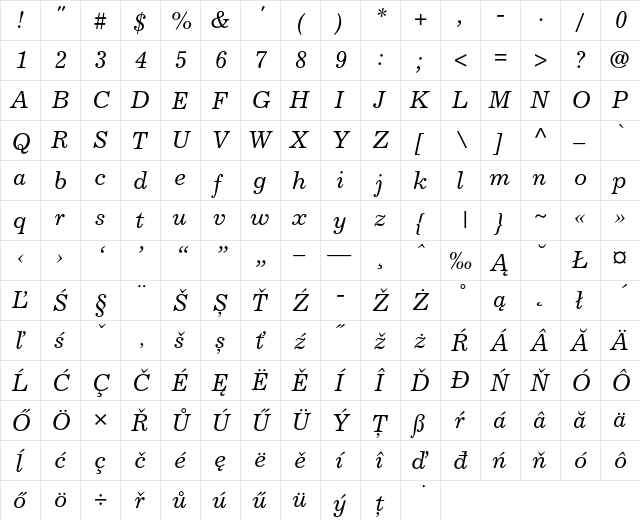
Excelsior EastA Italic
Design Context for Excelsior Typeface
Excelsior offers clean, dependable letterforms without strong stylistic allegiance, making it a practical choice for designers who need flexibility. Its italic angle brings a sense of urgency and motion to the letterforms.
Pro Tip: Use Excelsior for emphasis, pull quotes, and subheadings where its slanted energy can add rhythm to the layout.